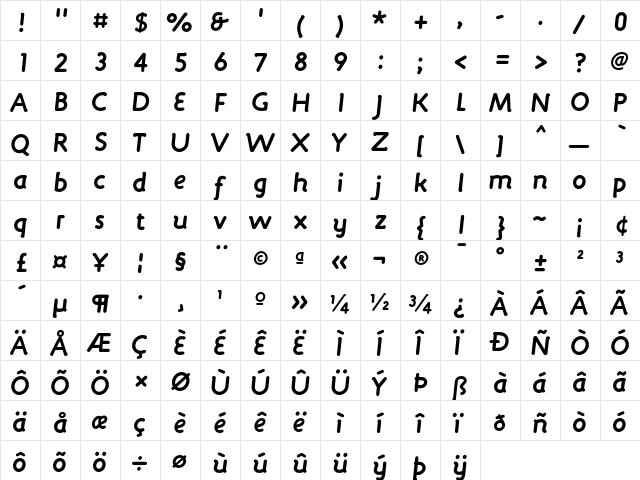
Engine BoldItalicLF
Design Context for Engine Typeface
Engine is a composed and adaptable typeface that performs quietly and consistently across a wide range of design contexts. Its italic angle brings a sense of urgency and motion to the letterforms. Its bold stroke weight gives it real presence on the page.
Pro Tip: Use Engine for emphasis, pull quotes, and subheadings where its slanted energy can add rhythm to the layout.